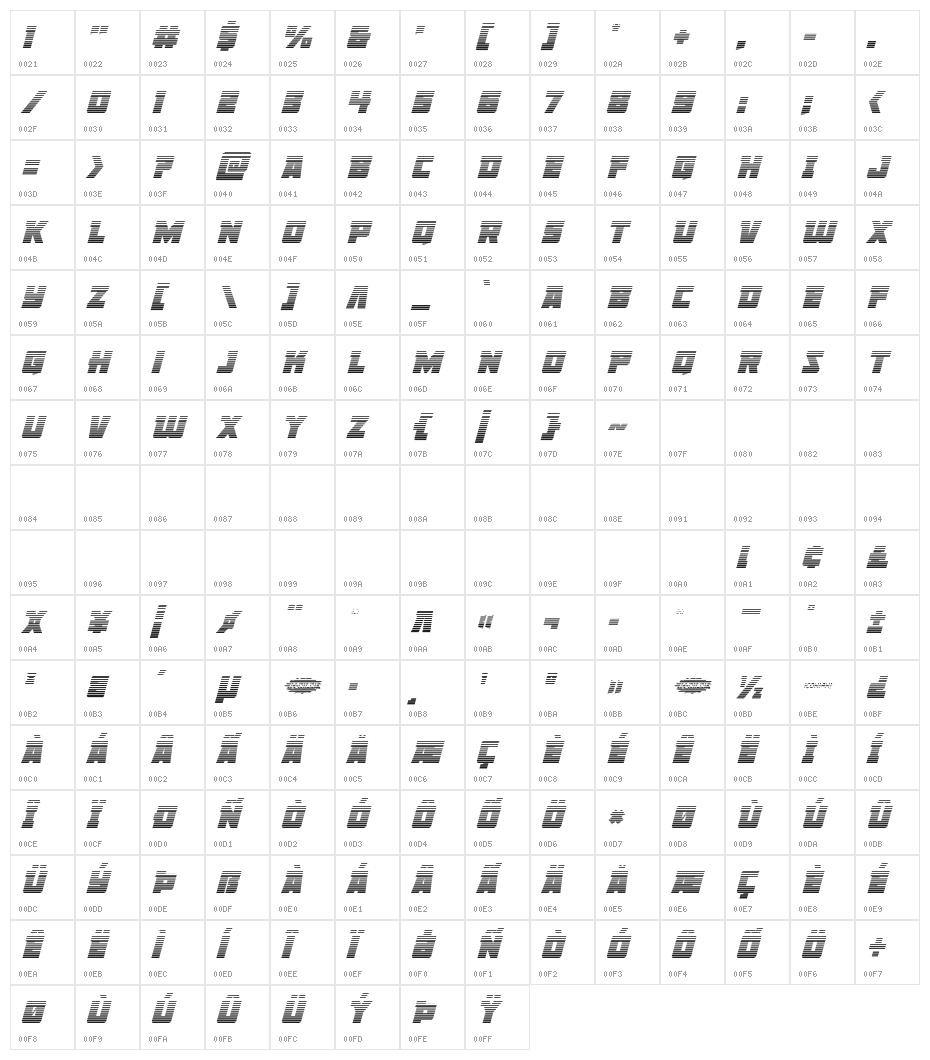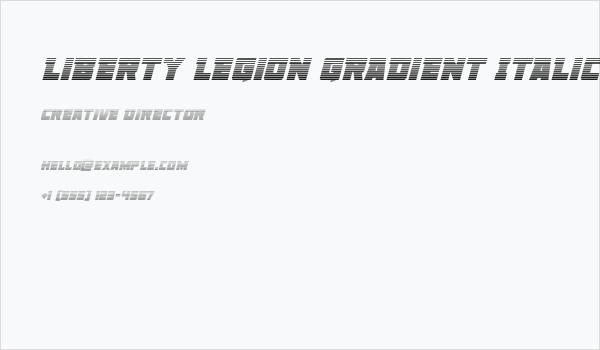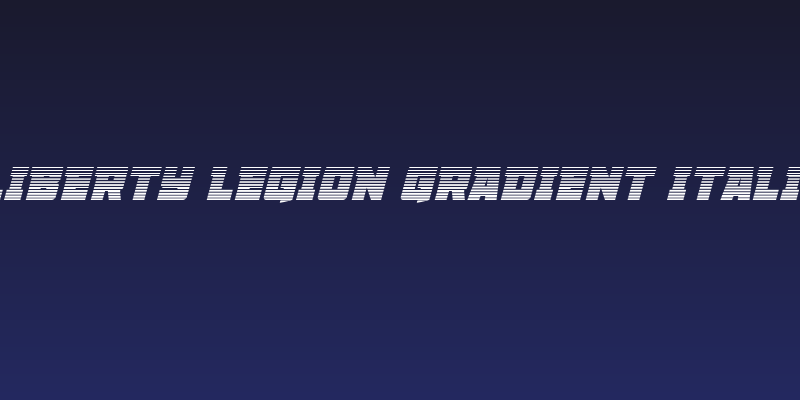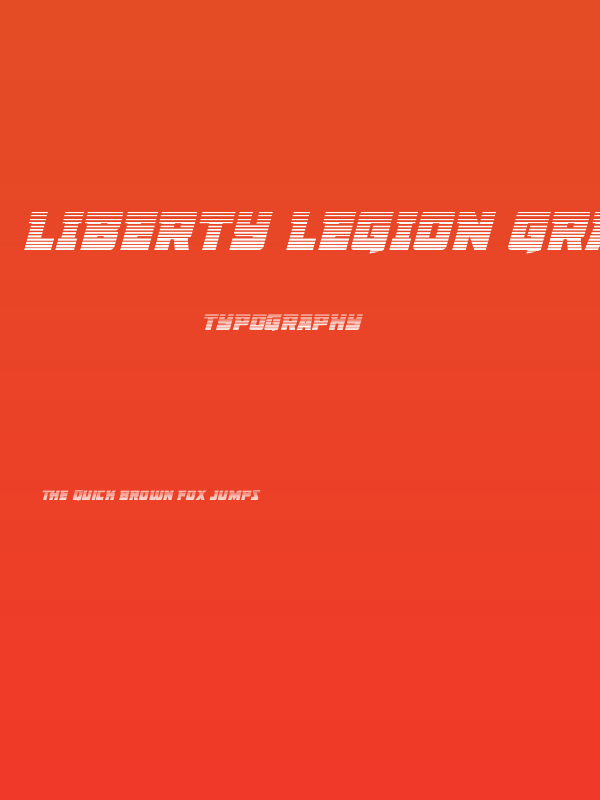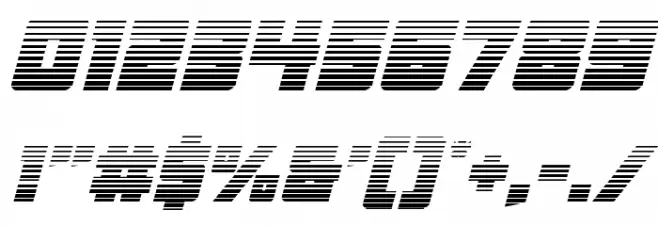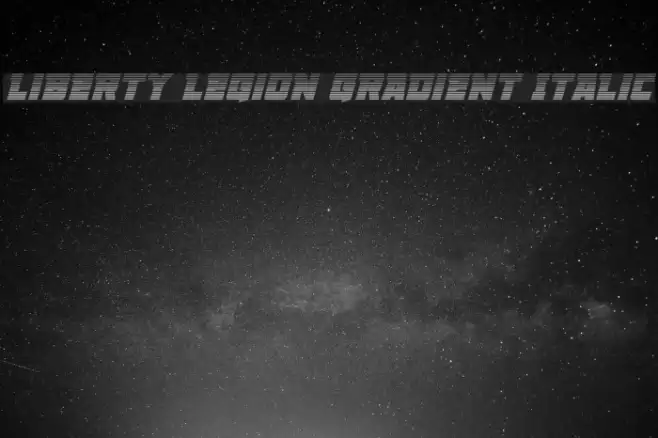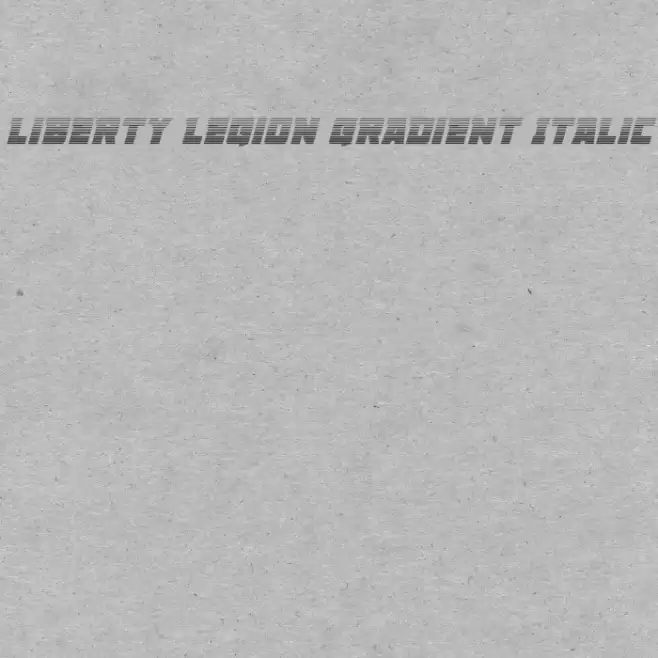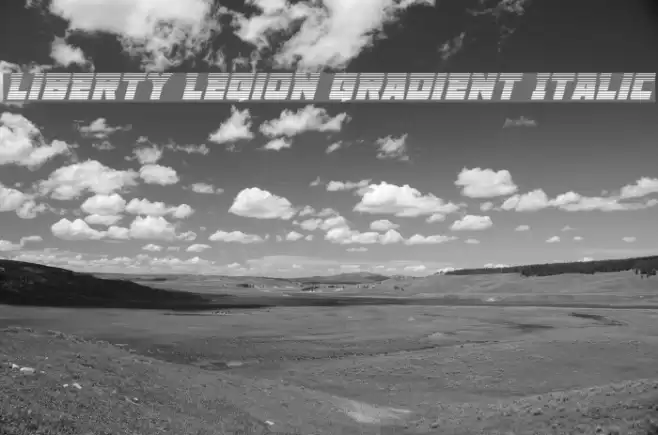
Liberty Legion Gradient Italic Font
This font features a bold, italicized style with a distinct gradient effect created by horizontal lines running through each character. The uppercase and lowercase letters, along with numbers and special characters, maintain a consistent slanted orientation, adding a dynamic and futuristic feel. The design is highly decorative, making it suitable for eye-catching headlines or branding that requires a modern and edgy appearance. The characters are tightly spaced, enhancing the compact and impactful look. The high contrast between the thick and thin lines within each character adds to the visual interest and uniqueness of the font.